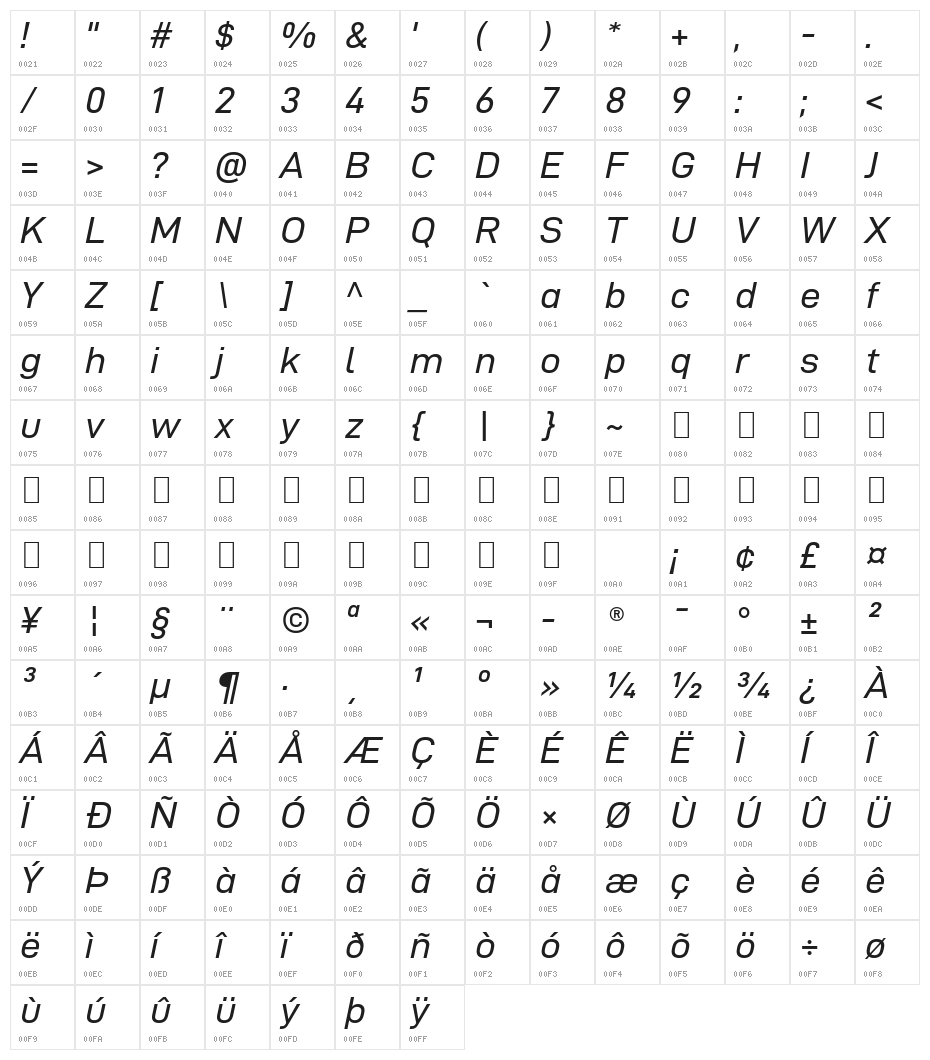
D-DIN Exp Italic Font
D-DIN Exp Italic Description
This font exhibits a clean, modern aesthetic with a distinctly italicized style. The characters are slightly slanted, giving a dynamic and forward-moving appearance. The typeface is sans-serif, characterized by its lack of decorative strokes, which contributes to its minimalist and contemporary look. The letters are evenly spaced, ensuring readability and clarity. The numbers and special characters maintain the same sleek design, making them suitable for various applications. This font is versatile, suitable for both digital and print media, and can be used effectively in professional and creative contexts.